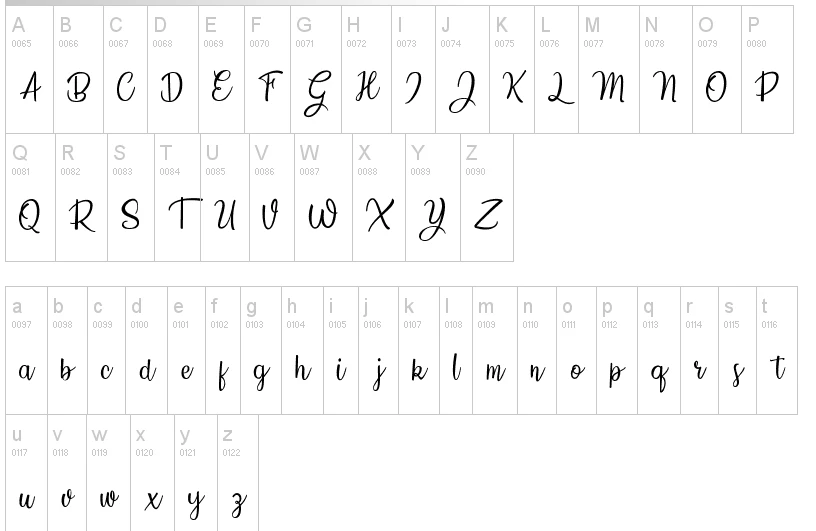
Countryside is a high-quality Handwritten Script font. Billy Argel designed this amazing font in 2018. Countryside Font is much more classic than other handwriting fonts. Its appearance is not as complicated as the calligraphy font. We are providing you 2 styles of countryside font. It has semi-light weight and normal width with 311 glyph. Halimun and Tomatoes are mostly similar to Countryside font.
Countryside font is very user friendly. As this is a Handwritten Script font you can use this font in other forms like-
| Name | Countryside Font |
| Style | Handwritten, Script |
| Author | Billy Argel |
| Type | Regular(2 style) |
What type of font is Countryside?
Ans: Countryside is a Handwritten Script font with semi-light weights true type regular font.